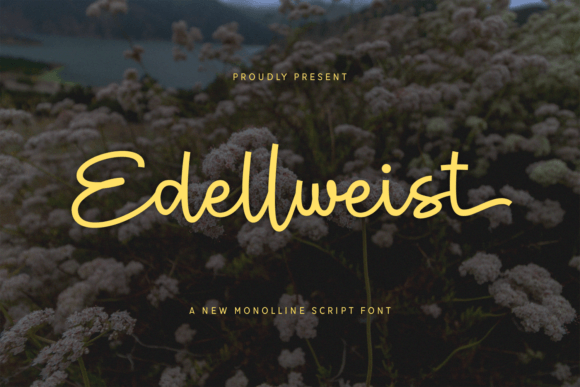
Introducing Edelweist Font: The Epitome of Elegance and Versatility
In the realm of typography, few fonts manage to strike a balance between elegance, simplicity, and versatility. Edelweist, a charming monoline script font, is one such exceptional find. Its natural and casual flow, coupled with clean and smooth strokes, evokes a sense of simplicity and warmth, making it an ideal choice for a wide array of design projects. From branding and nature-themed projects to wedding stationery, logos, and social media designs, Edelweist brings a touch of effortless elegance and authenticity to any creation.
The Unique Charm of Edelweist
Edelweist’s unique charm lies in its monoline script design, which is both clean and fluid. This characteristic gives it a modern yet approachable feel, suitable for brands and designers looking to convey a sense of sophistication without appearing too formal. The font’s natural flow makes it highly readable, ensuring that messages are conveyed with clarity and grace.
Versatility at Its Best
One of the standout features of Edelweist is its incredible versatility. This font can seamlessly integrate into various design projects, including:
- Branding: Edelweist can help create a strong brand identity with its elegant and approachable feel.
- Nature-themed projects: The font’s organic and fluid strokes are perfect for projects that celebrate the beauty of nature.
- Wedding stationery: Add a touch of romance and sophistication to wedding invitations, menus, and other stationery with Edelweist.
- Logos: Create memorable and impactful logos that stand out with the unique charm of Edelweist.
- Social media designs: Elevate your social media presence with elegant and engaging designs that utilize Edelweist.
Why Choose Edelweist?
There are several reasons why Edelweist should be your go-to font for your next design project:
- Elegance: Edelweist brings a level of sophistication and elegance that is hard to find in other fonts.
- Simplicity: Its clean and smooth strokes ensure that your designs look uncluttered and straightforward.
- Authenticity: Edelweist offers a genuine and heartfelt feel, making it perfect for projects that require a personal touch.
- Versatility: As mentioned earlier, Edelweist can be used across a wide range of projects, making it a valuable addition to any designer’s font library.
Tips for Using Edelweist Effectively
To make the most out of Edelweist, consider the following tips:
- Pair with contrasting fonts: Combine Edelweist with sans-serif or serif fonts to create visual interest and hierarchy in your designs.
- Experiment with colors: While Edelweist looks great in black and white, don’t be afraid to experiment with colors that complement your brand or project’s theme.
- Play with sizes: Utilize different font sizes to create emphasis and guide the viewer’s eye through your design.
Edelweist is more than just a font; it’s a design companion that can elevate your projects with its elegance, simplicity, and versatility. Whether you’re a designer looking to expand your creative toolkit or a brand aiming to establish a strong visual identity, Edelweist is an excellent choice. Its ability to convey warmth, authenticity, and effortless elegance makes it perfect for a myriad of applications. Discover the potential of Edelweist and let it be the touch that transforms your designs into memorable experiences.
FAQs About Edelweist Font
What makes Edelweist unique?
Edelweist’s uniqueness lies in its monoline script design, which offers a natural and casual flow, making it both elegant and approachable.
Is Edelweist suitable for digital use?
Absolutely. Edelweist’s clean and smooth strokes ensure it remains legible and aesthetically pleasing in digital formats, making it perfect for social media designs and website content.